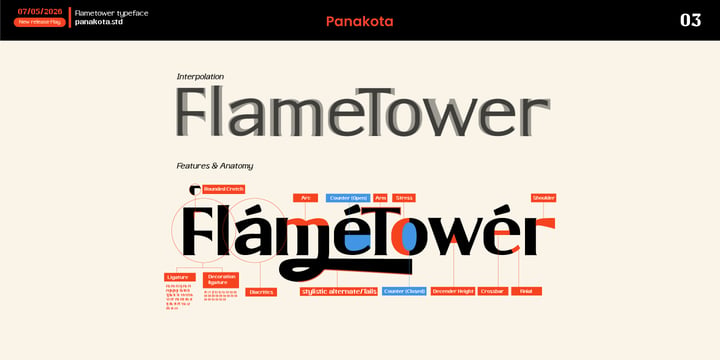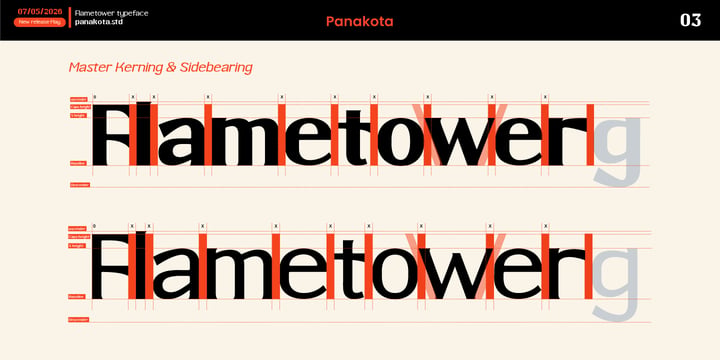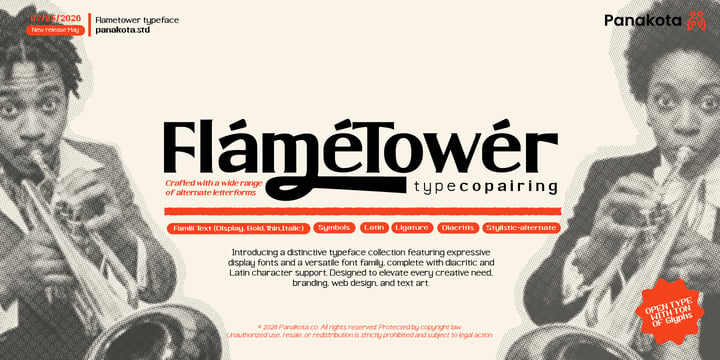
Restu Hadi
Restu Hadi is a type designer and typographer based in Bandung, Indonesia. Over the past five years, he has been developing his craft through Panakotype, a small independent studio focused on creating typefaces for brands, editorial work, and digital platforms.
His interest in type grew from a deep appreciation for editorial design and the role typography plays in shaping identity. For Restu, designing a typeface is similar to building a personal brand, every curve and detail carries meaning and communicates something before a single word is read.
His work spans a wide range of styles including serif, sans serif, display, decorative, and experimental typefaces. He specializes in font families built for branding and web use, often designed with extended glyph sets that include alternates, decorative ligatures, and stylistic variants. This approach gives users flexibility, using the display version for logotypes while the text family handles body copy and UI needs.
Each project at Panakotype starts with understanding what a design needs to say, and finding the letterforms that say it best.